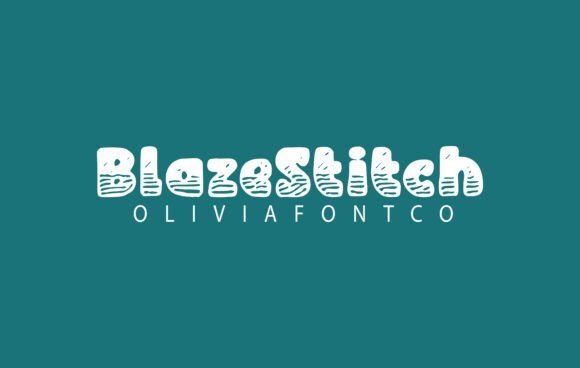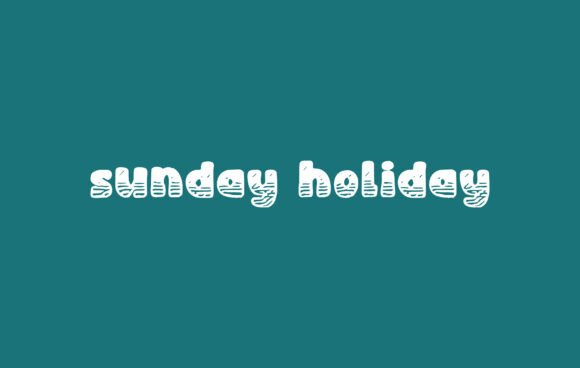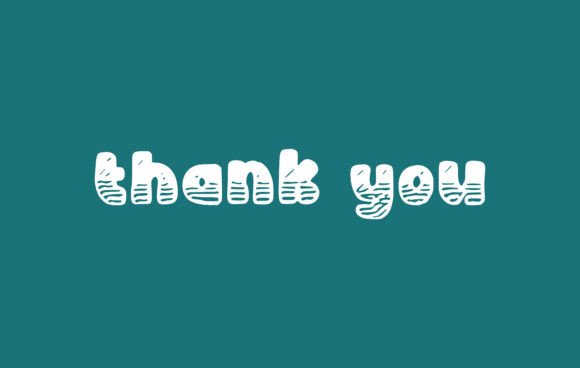
Have you ever stared at a blank page, waiting for the perfect words to flow? The blank canvas can be intimidating, but the right font can spark your creativity and bring your ideas to life. For designers looking to infuse their work with a romantic touch, the Blazestitch Font is a game-changer.
This authentic handwritten font is expertly designed to add a personal touch to your designs. Whether you’re working on a magazine headline, social media post, or wedding invitation, the Blazestitch Font has the versatility to elevate your creative ideas. Its legibility makes it perfect for both title and body text, allowing you to experiment with different layouts and designs.
As a valuable addition to any designer’s toolkit, the Blazestitch Font offers endless possibilities for creative expression. Its unique charm and romantic feel make it an ideal choice for designers looking to add a touch of whimsy to their work.
Blazestitch Font Key Features
- Font Family: Blazestitch comes in 3 unique font families, each with 4 weights and matching italics, offering a total of 24 font styles.
- Character Set: Blazestitch includes a comprehensive character set covering Latin, Cyrillic, and Greek alphabets, with support for accented characters and punctuation.
- Unique Characteristics: The font features a dynamic, hand-drawn aesthetic with intricate details and subtle texture, making it perfect for creative and design-driven projects.
- Resolution: Designed to be scalable, Blazestitch is optimized for high-resolution displays and printing, ensuring crisp and clear text at any size.
- Font Size: Blazestitch is available in 4 different font sizes, ranging from 12pt to 72pt, allowing for flexibility in layout and composition.
Designer Review: Blazestitch Font
Blazestitch Font is an interesting addition to the digital typography world, and I’ve had the chance to dig in and see what it’s all about. Here’s my honest take:
- Unique design: Blazestitch Font stands out from the crowd with its distinctive, hand-drawn style. The curves and lines are playful and attention-grabbing.
- Highly customizable: The font is available in a range of weights and styles, making it perfect for designers who need to create visually appealing text in various contexts.
- Great for creative projects: Blazestitch Font is a great choice for designers who want to add a touch of whimsy and personality to their projects.
- Readability issues: While the font is visually striking, it can be difficult to read in certain contexts, particularly at small font sizes or in low-light conditions.
- Lack of standard ligatures: The font doesn’t include standard ligatures, which can make it difficult to use in professional or formal settings.
Blazestitch Font is a solid choice for designers who want to add a bit of flair to their projects. While it may not be the best choice for every situation, it’s definitely worth considering for creative or experimental projects. With a little tweaking and careful use, this font can be a real showstopper.
Tips for Getting the Most Out of Blazestitch Font
Use bold and italic styles to add emphasis to your text.
Combine Blazestitch Font with other fonts to create a unique and eye-catching design.
Use Blazestitch Font for:
Headlines and titles
Brand logos and identity
Editorial and design projects
Alternatives to Blazestitch Font
Great Vibes is a modern, cursive font that is ideal for creating a playful and energetic atmosphere. It is perfect for use in branding, advertising, and editorial content. Great Vibes has a more fluid and dynamic feel compared to Blazestitch, making it suitable for projects that require a sense of movement and flow.
Alex Brush is a elegant, handwritten font that is great for adding a touch of sophistication and refinement to designs. It is suitable for use in premium branding, packaging, and editorial content. Compared to Blazestitch, Alex Brush has a more subtle and refined feel, making it ideal for projects that require a sense of luxury and high-end quality.
Dancing Script is a dynamic, handwritten font that is perfect for creating a sense of energy and excitement. It is suitable for use in branding, advertising, and editorial content. Compared to Blazestitch, Dancing Script has a more dramatic and expressive feel, making it ideal for projects that require a sense of drama and flair.